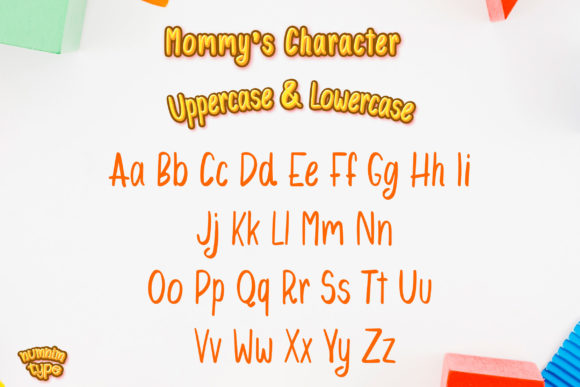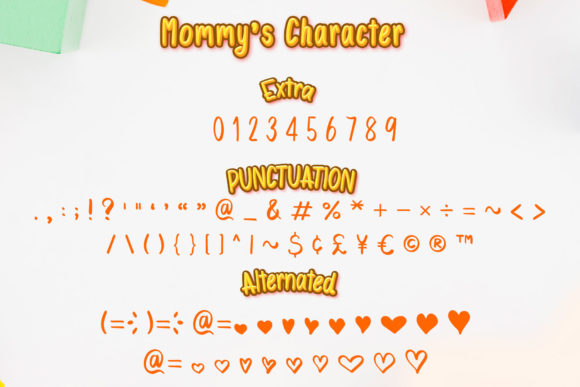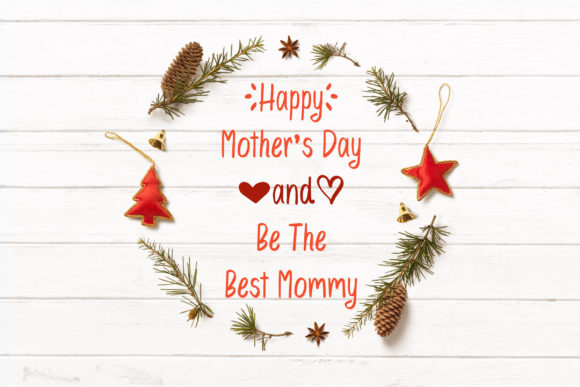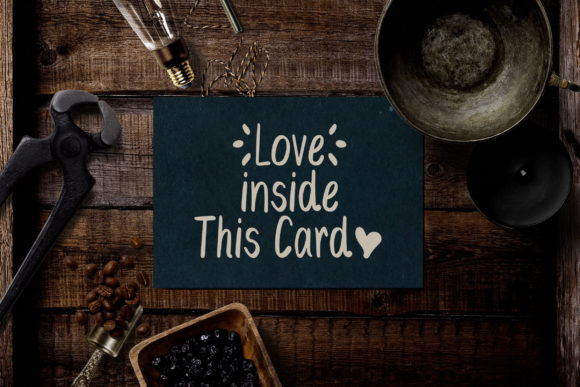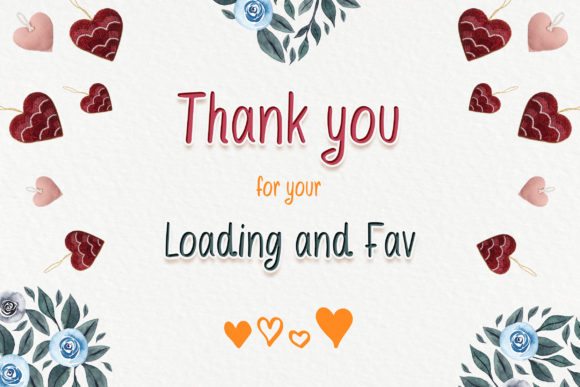
Mommy Font
About Mommy Font
Mommy is a joyful and friendly handwritten font, featuring cute doodle elements. Fall in love with its sweet, flexible style and use it to create lovely designs for school or children related.